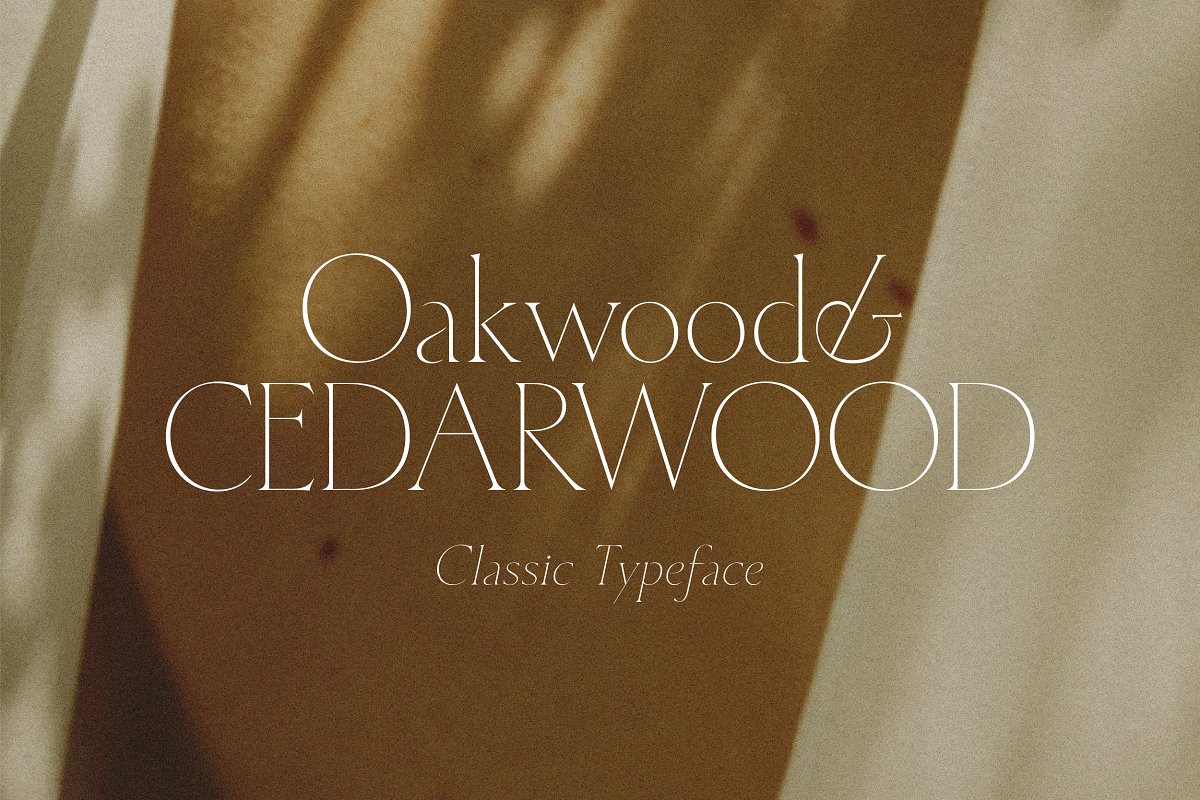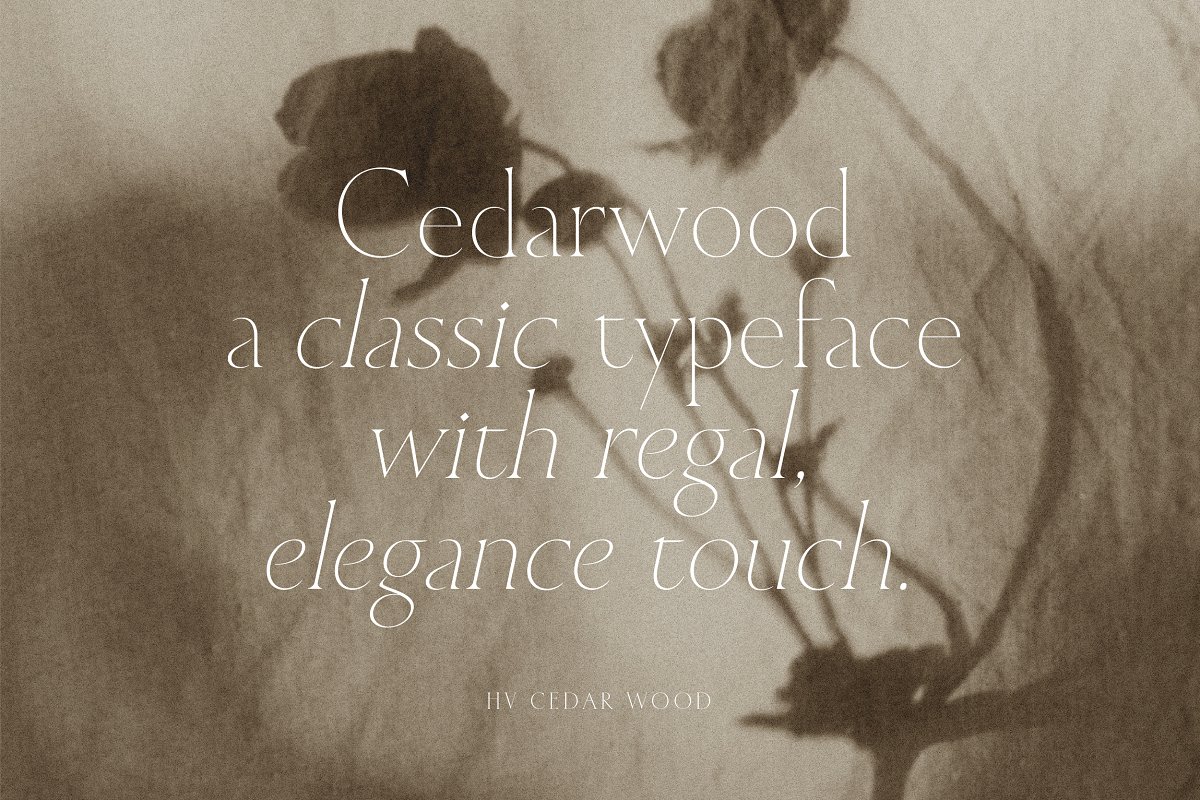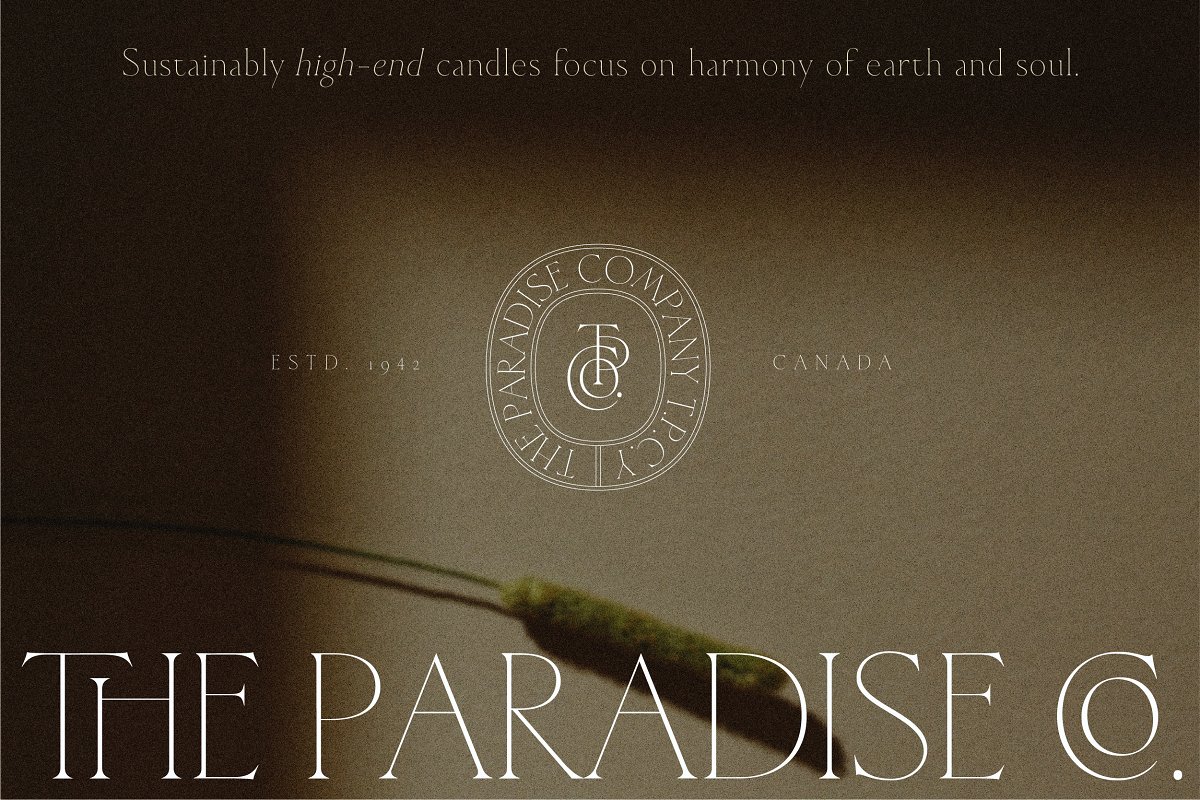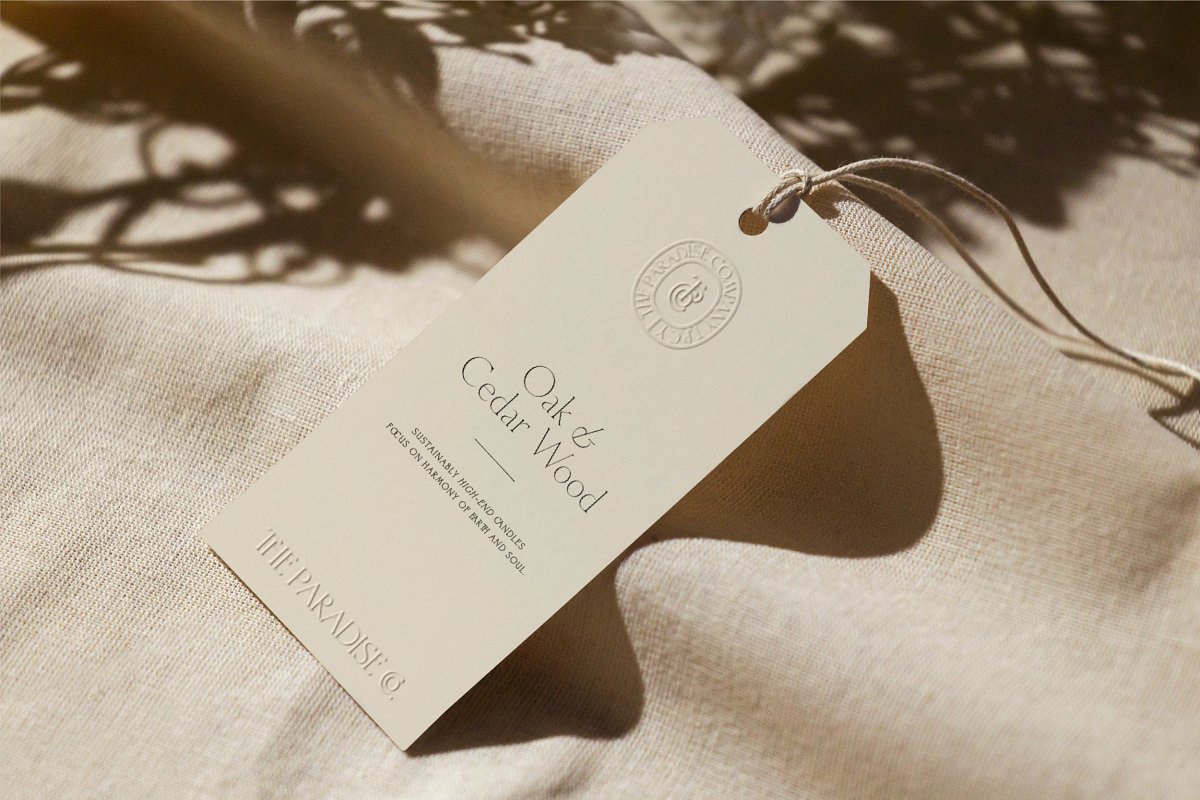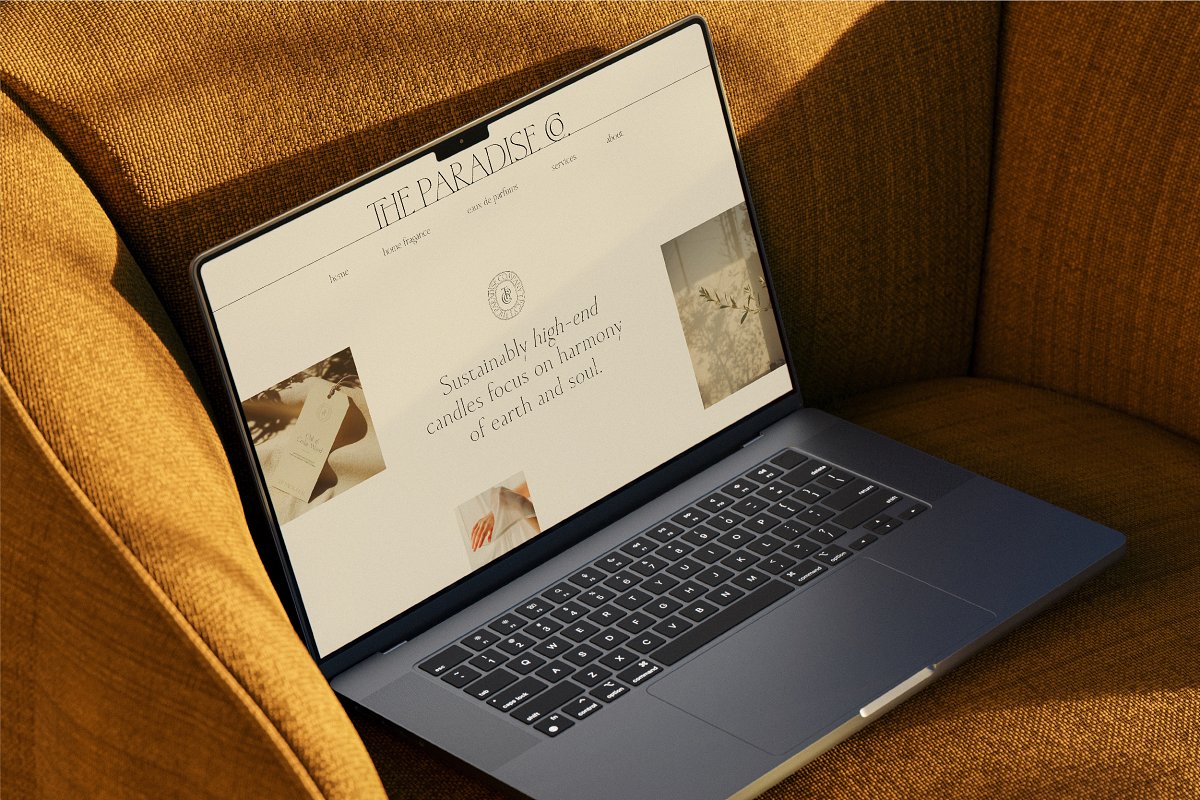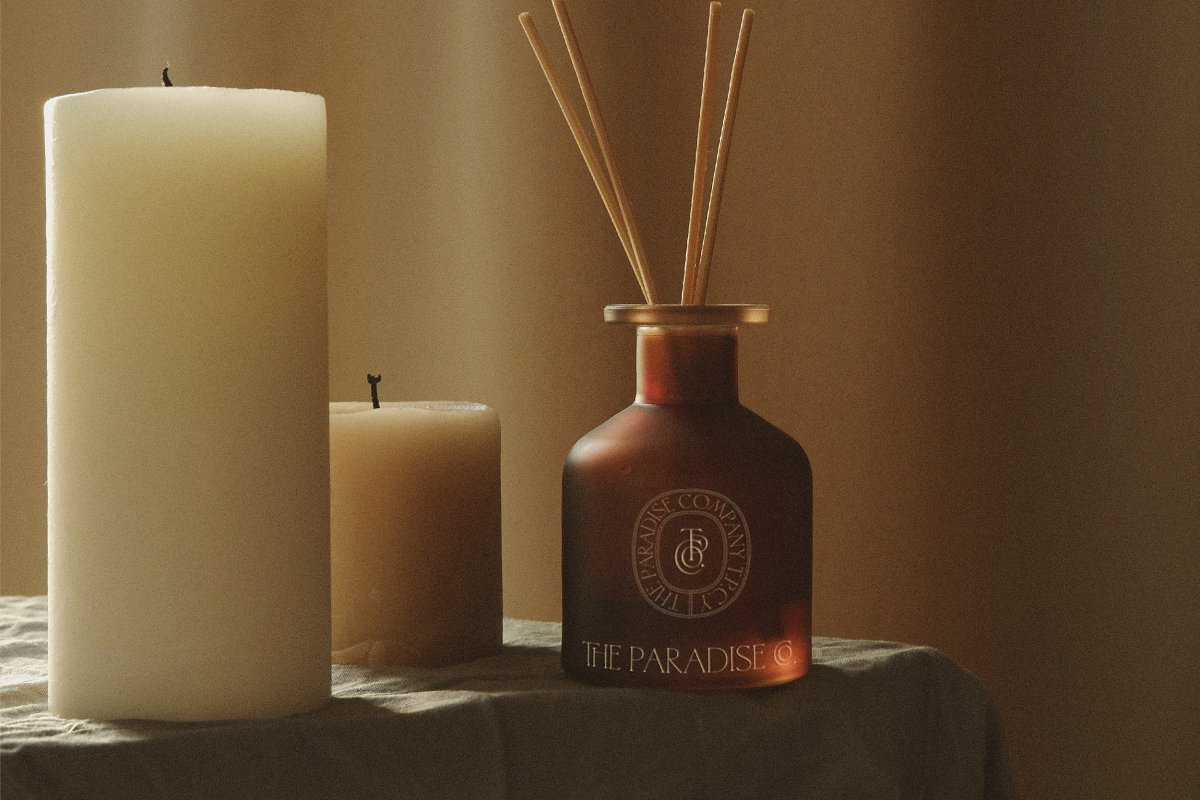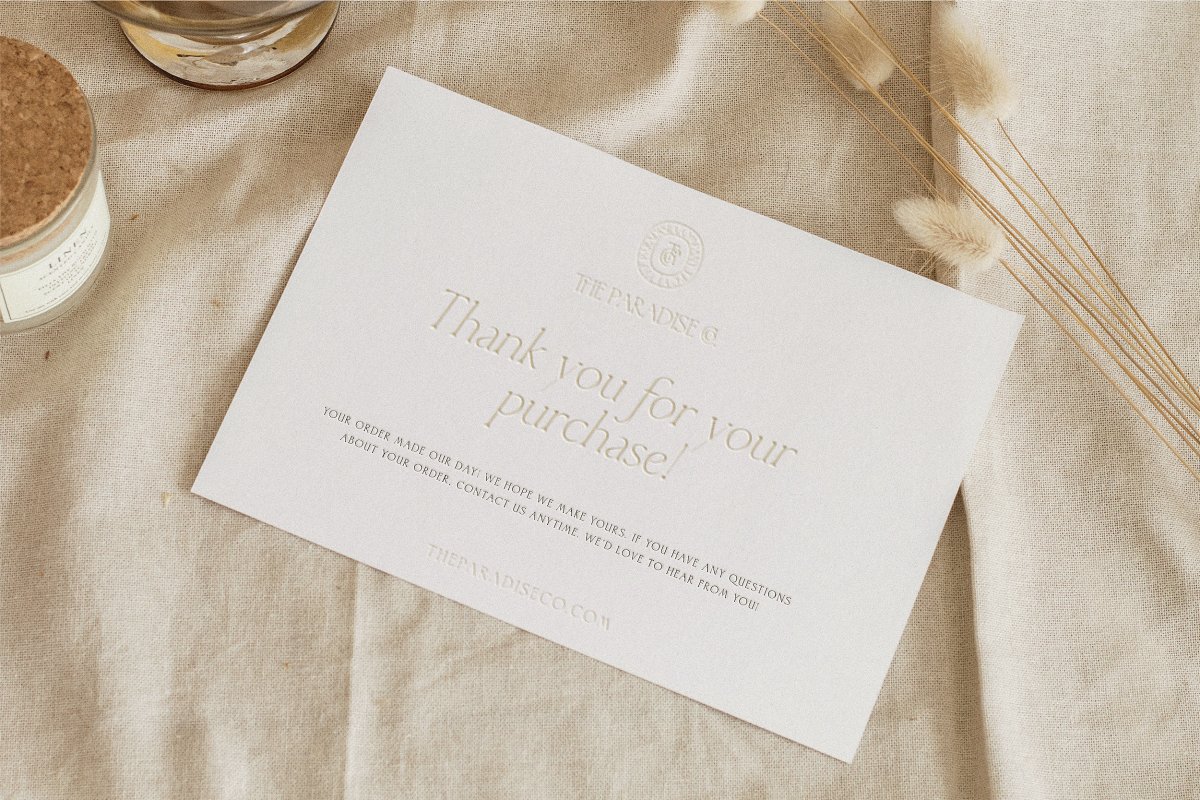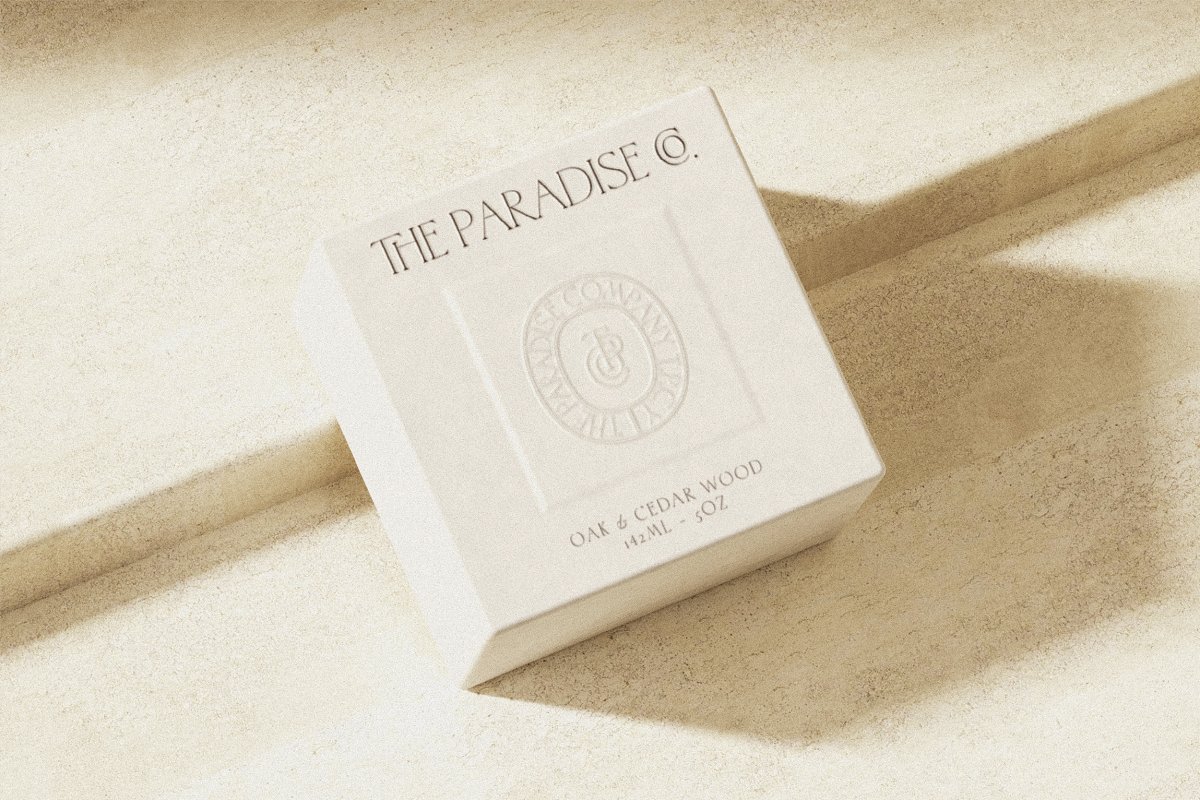
About the Cedarwood Classy Serif Font
Cedarwood is a classic serif with a regal, elegant touch, Inspired by the work of the old masters, Cedarwood is perfectly suitable for creating classy yet still elegant designs such as logos, packaging, editorial, and more, A SUMMARY OF WHAT’S INCLUDED:HV Cedarwood Regular Font (, ttf, , otf & , woff)HV Cedarwood Italic Font (, ttf, , otf & , woff)HV Cedarwood Bold Font (